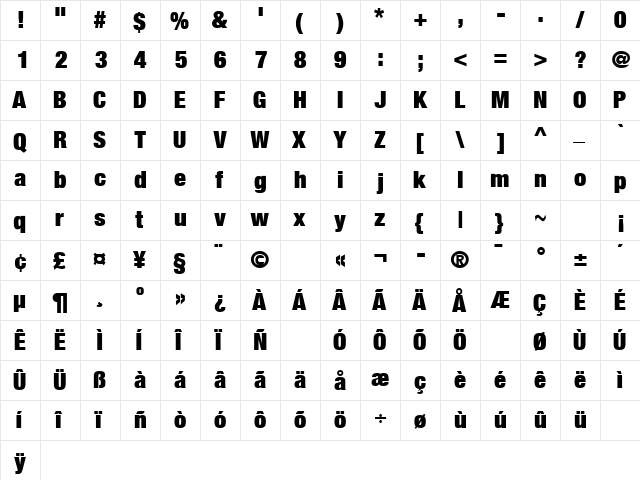
ContextRepriseUltraCondSSK Regular Font Preview
ContextRepriseUltraCondSSK Regular
Design Context for ContextRepriseUltraCondSSK Typeface
ContextRepriseUltraCondSSK is a composed and adaptable typeface that performs quietly and consistently across a wide range of design contexts. The condensed width makes it efficient for tight spaces without sacrificing legibility.